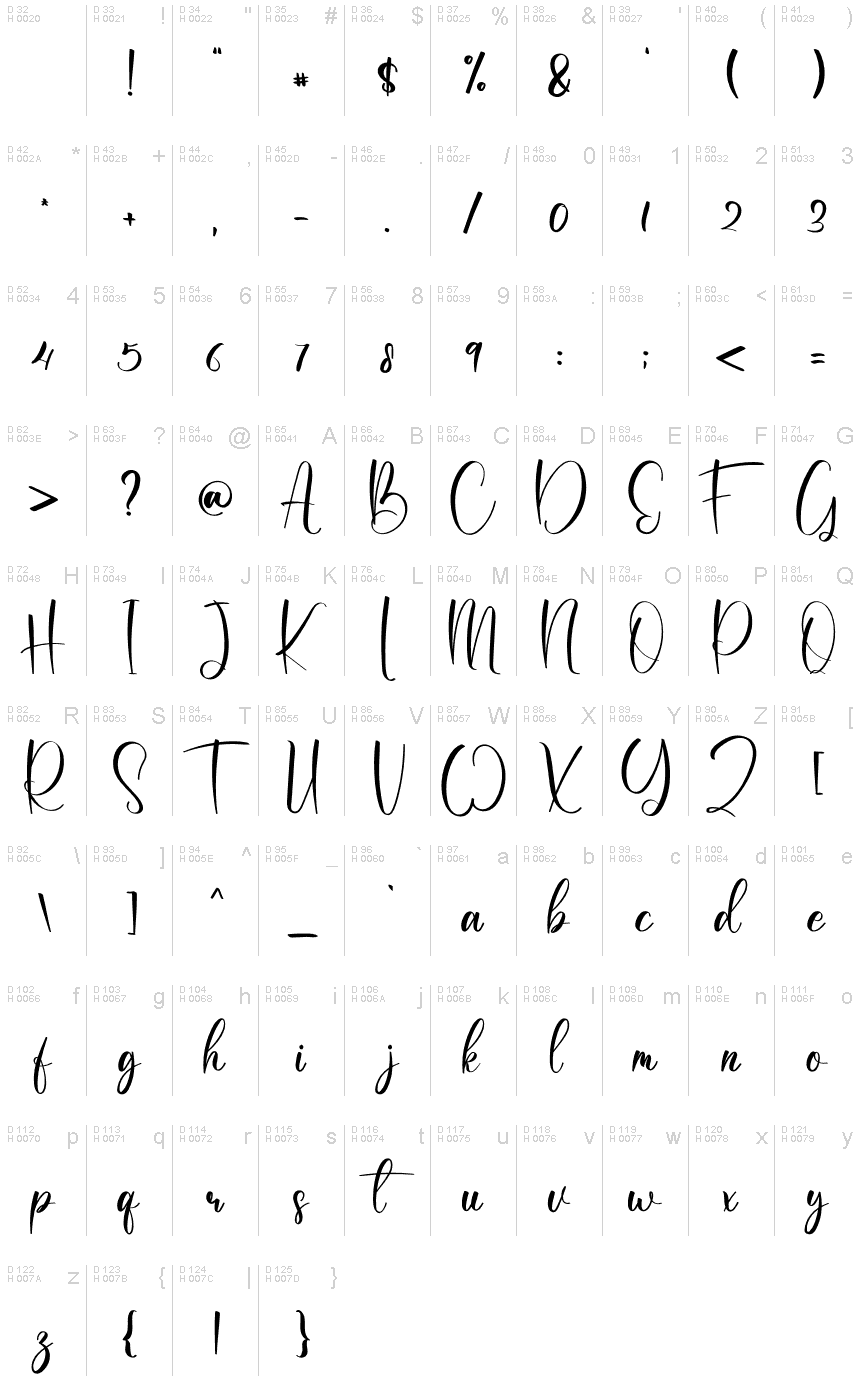
Matthew Love
Introducing Matthew Love, a calligraphic font designed by FreshtypeINK. With its narrow but light weight style, this font is perfect for adding an elegant touch to your wedding invitations, cards and other special projects.